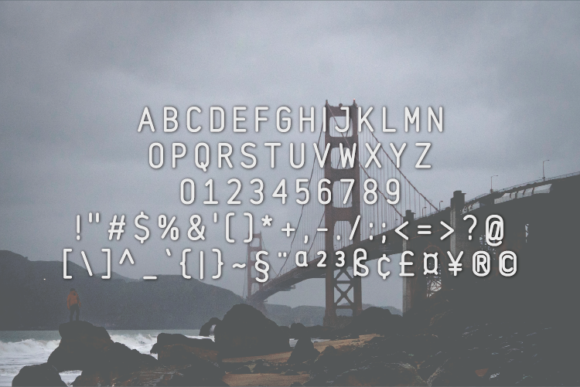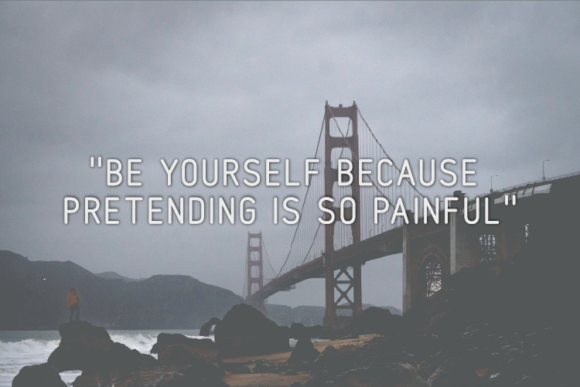
Dernzou Font: Elevate Your Design with Modern Elegance
In the world of typography, a font can make or break a design. With the right font, your project can exude professionalism, elegance, and sophistication. This is where Dernzou Font comes into play – a modern and clean sans serif font that has been gaining popularity among designers and crafters. In this article, we’ll dive into the features, benefits, and uses of Dernzou Font, and explore why it’s an excellent choice for your next design project.
The Characteristics of Dernzou Font
Dernzou Font is a versatile sans serif font that boasts smooth and clean lines, with just a touch of contrast. Its modern design makes it perfect for a wide range of applications, from logos and branding to web headings and more. The font’s clean lines and minimalistic approach ensure that it remains legible, even at smaller font sizes. This makes it an excellent choice for body text, as well as display text.
What Makes Dernzou Font Stand Out?
So, what sets Dernzou Font apart from other fonts in its category? Here are a few key features that make it a standout:
- Modern and Clean Design: Dernzou Font’s sleek design ensures that your text looks contemporary and fresh, making it perfect for modern brands and designs.
- Versatility: This font is incredibly versatile and can be used in a variety of contexts, from digital platforms to print materials.
- Legibility: Dernzou Font’s clean lines and minimalistic approach ensure that it remains legible, even at smaller font sizes.
- High-Quality: As a high-quality font, Dernzou Font is designed to deliver crisp and clear text, making it perfect for both digital and print applications.
Uses of Dernzou Font
Dernzou Font’s versatility makes it suitable for a wide range of design projects. Here are some of the most popular uses of this font:
- Logos and Branding: Dernzou Font’s modern and clean design makes it perfect for logos, wordmarks, and branding projects.
- Web Headings: This font is ideal for web headings, as it adds a touch of elegance and sophistication to your website.
- Print Materials: Dernzou Font can be used in a variety of print materials, including brochures, flyers, posters, and more.
- Packaging Design: This font is also suitable for packaging design, as it adds a touch of modernity and sophistication to your product packaging.
Benefits of Using Dernzou Font
So, why should you choose Dernzou Font for your next design project? Here are some of the benefits of using this font:
- Save Time: With Dernzou Font, you can save time and effort in finding the perfect font for your project.
- Enhance Your Design: This font can elevate your design and add a touch of modernity and sophistication.
- Increase Legibility: Dernzou Font’s clean lines and minimalistic approach ensure that your text remains legible, even at smaller font sizes.
- Stand Out: By using Dernzou Font, you can create a unique and distinctive look that sets your design apart from others.
In conclusion, Dernzou Font is an excellent choice for designers and crafters looking for a modern and clean sans serif font. Its versatility, legibility, and high-quality design make it perfect for a wide range of design projects. Whether you’re working on a logo, branding project, web headings, or print materials, Dernzou Font is sure to elevate your design and add a touch of elegance and sophistication. So, why not give it a try and see the difference it can make in your next design project?